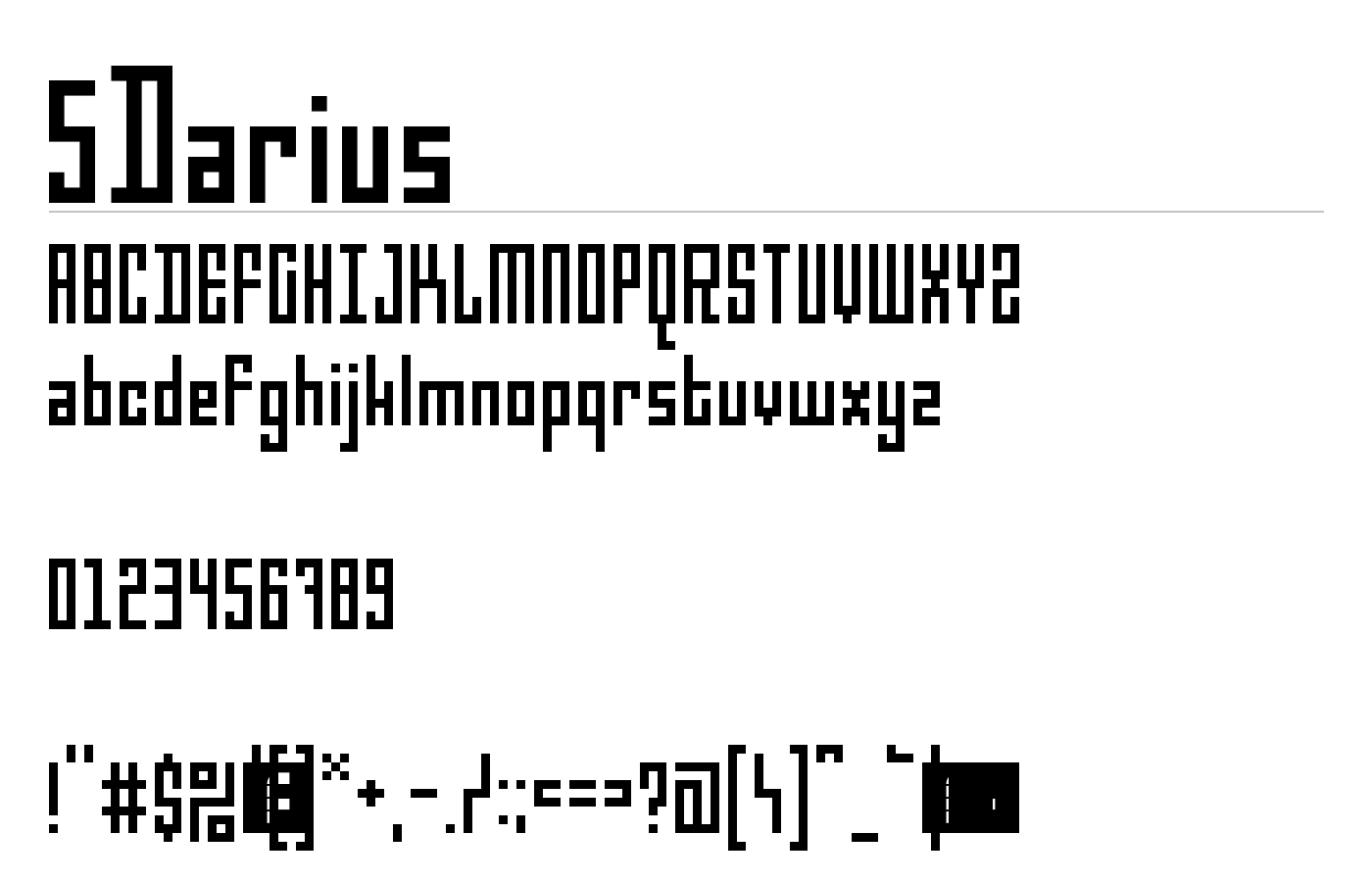
5Darius is a condensed, sans serif font with a modern, geometric, and minimalistic style. Its tall, narrow letterforms and consistent stroke weight create a strong, digital aesthetic that suits tech, gaming, and futuristic branding. This font works best for headlines, logos, and designs where a bold, technical look is desired.
5Darius Font
About 5Darius Font
| Font family | 5Darius Font |
| Designer | Noah - 10 year old typomaniac |